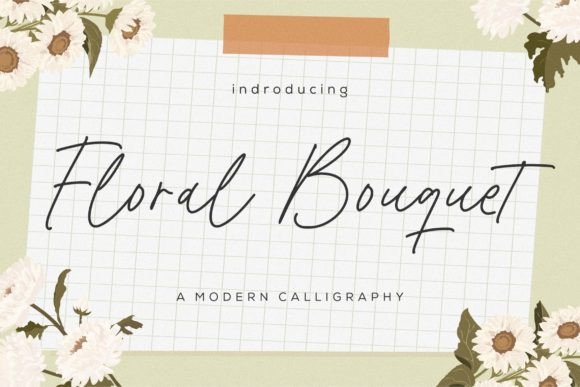
Enter the enchanting realm of Floral Bouquet Font - a modern calligraphic script font that exudes elegance and allure. Its clean lines and understated sophistication make it the perfect choice for design enthusiasts seeking a timeless yet contemporary aesthetic.
With its smooth, effortless flow, Floral Bouquet Font dances across your designs, bringing life to logos, branding, invitations, packaging, and more. Its inherent versatility allows it to adapt seamlessly to a wide range of projects, adding a touch of refined beauty to each one.
Imagine your designs adorned with the graceful curves and elegant swashes of Floral Bouquet Font. Its timeless appeal ensures that your creations will stand the test of time, captivating audiences with their enduring charm. Let your designs bloom with the beauty of Floral Bouquet Font.
Step into a world of creative possibilities with Floral Bouquet Font. Its user-friendly nature makes it accessible to designers of all levels, allowing you to effortlessly transform your ideas into captivating realities.
Indulge in the joy of customization with Floral Bouquet Font. Its extensive character set and range of stylistic alternates provide endless opportunities to tailor your designs to perfection. Create unique and captivating compositions that reflect your personal style and vision.
With Floral Bouquet Font, your designs will blossom into works of art, leaving a lasting impression on all who encounter them. Experience the magic of Floral Bouquet Font today and unlock a world of creative enchantment.